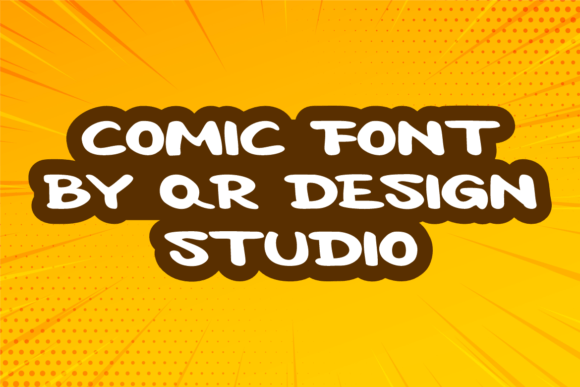
Comic Gamer Font
Comic Gamer is a unique and interesting display font. A little bit quirky, this font looks incredibly adept on a wide variety of contexts!